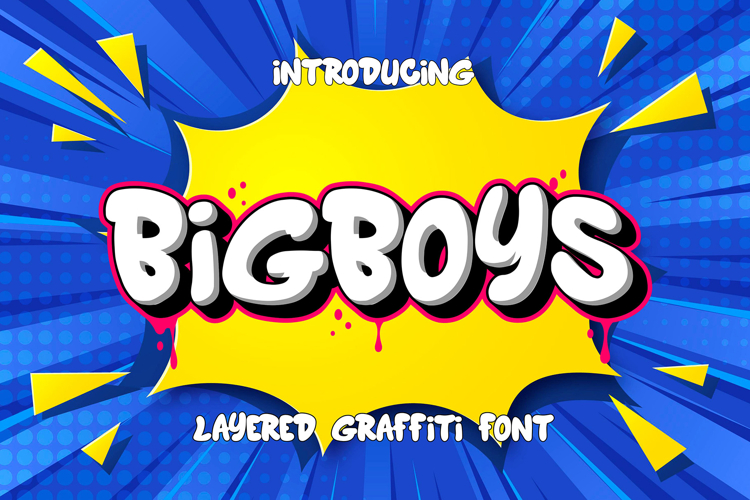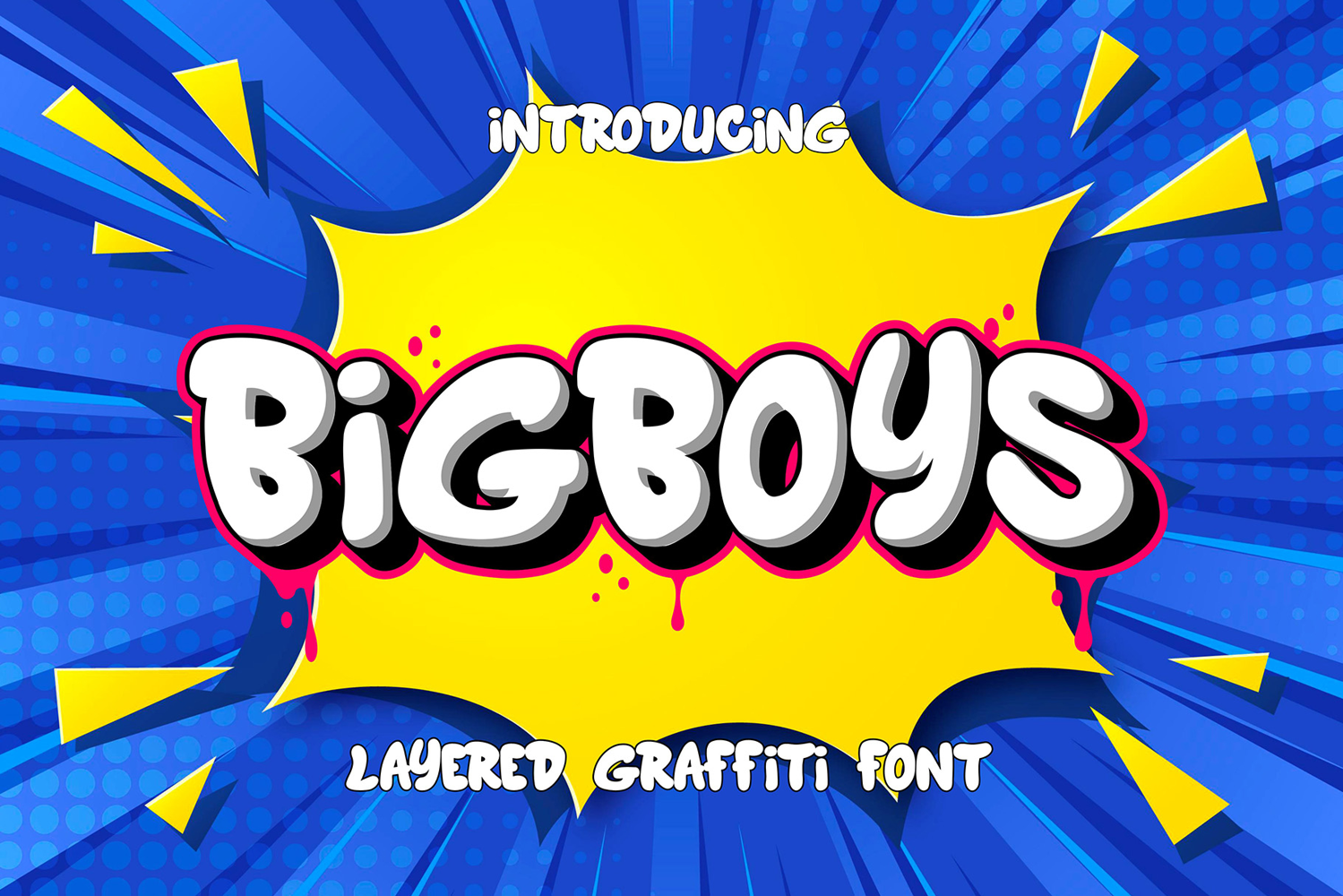
Bigboys | Bold & Layered Graffiti Font
🔥 Bigboys – Bold & Layered Graffiti Font 🎨
Unleash raw street energy with Bigboys, a bold, layered graffiti font that brings urban vibes to your designs! Inspired by street art, hip-hop culture, and graffiti murals, Bigboys delivers an edgy, rebellious feel with its dynamic, hand-painted strokes. Whether you're designing posters, album covers, branding, or merchandise, this font makes a powerful statement with its authentic street-style appeal.
💥 Why Bigboys Stands Out:
✅ Layered Graffiti Style – Create depth and dimension with multiple layers.
✅ Bold & Edgy – Perfect for urban, hip-hop, and underground-inspired designs.
✅ Handcrafted Look – Raw, expressive strokes for an authentic graffiti feel.
✅ Super Versatile – Ideal for posters, logos, apparel, branding, and social media.